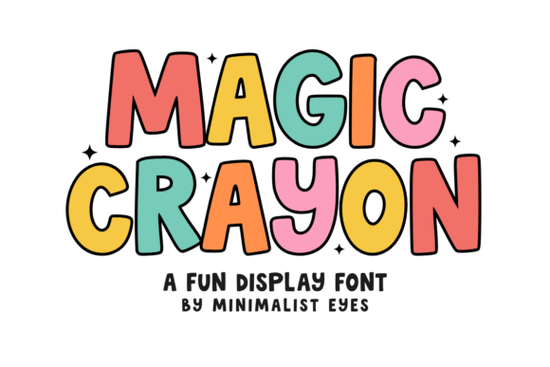
Looking for a font that brings a sense of fun and nostalgia to your designs? The Magic Crayon Font is a great choice for anyone who wants to add a playful touch to their creative projects. With its thick, rounded edges and hand-drawn style, this display font feels like it was lifted straight from a childhood coloring book. It’s perfect for a variety of uses, from school posters to birthday invitations and even nursery decor.
If you're a crafter or someone who works with Cricut or Silhouette machines, the Magic Crayon Font can help you create eye-catching designs that stand out. Its bubbly appearance adds energy and charm, making it ideal for t-shirts, social media graphics, and more. Whether you're working on a personal project or running a small business, this font offers a unique way to express creativity without being too formal.
What Makes Magic Crayon Unique?
The Magic Crayon Font stands out because of its hand-drawn aesthetic. Unlike many digital fonts that feel rigid or overly clean, this one has a warm, organic look that feels more personal. The thick strokes and soft curves give it a friendly vibe, making it suitable for both casual and commercial use. It’s especially popular among those who want to add a whimsical touch to their work.
Designers often look for fonts that can convey emotion and personality, and Magic Crayon does just that. It’s not just a font it’s a tool for storytelling. Whether you're creating a birthday card or designing a poster for a local event, this font helps you communicate a sense of joy and playfulness.
Best Uses for Magic Crayon
This font works well in a range of applications. For example, it’s a favorite among print-on-demand sellers who want to create products that feel handmade and heartfelt. It also pairs well with other playful fonts, making it a versatile addition to any designer’s toolkit. If you’re looking for something that feels nostalgic but modern, Magic Crayon is a solid choice.
- Cricut and Silhouette projects: Add a fun element to vinyl cutouts and custom stickers.
- School and educational materials: Ideal for classroom signs, worksheets, and bulletin boards.
- Birthday and party invitations: Bring a cheerful tone to your event designs.
- Nursery and kids’ decor: Perfect for wall art, name tags, and decorative elements.
How to Use Magic Crayon in Your Projects
Using the Magic Crayon Font is straightforward. Once you’ve downloaded it, you can apply it in design software like Adobe Illustrator, Canva, or even Microsoft Word. The font works best as a display font, so it’s not recommended for body text. Instead, use it for headings, titles, and other visual elements that need a bold, expressive look.
For crafters, the font can be used to create custom stencils or engraved designs. Its rounded edges make it easy to read while still maintaining a whimsical feel. If you’re new to using display fonts, start by experimenting with small projects before moving on to larger ones.
Remember, the goal is to find a font that enhances your work without overpowering it. The Magic Crayon Font is a great option if you want to add a touch of playfulness to your creations.
If you’re looking for a font that feels both nostalgic and modern, Magic Crayon is worth trying. It’s a versatile choice that can bring a fresh, lively energy to your designs.